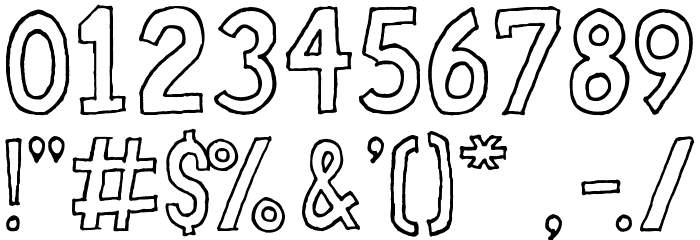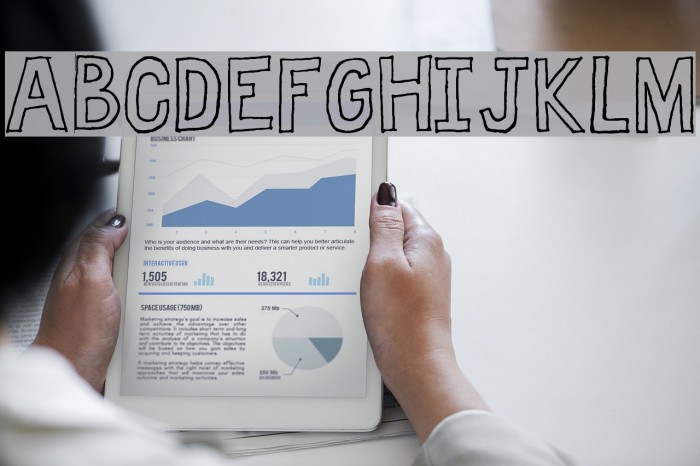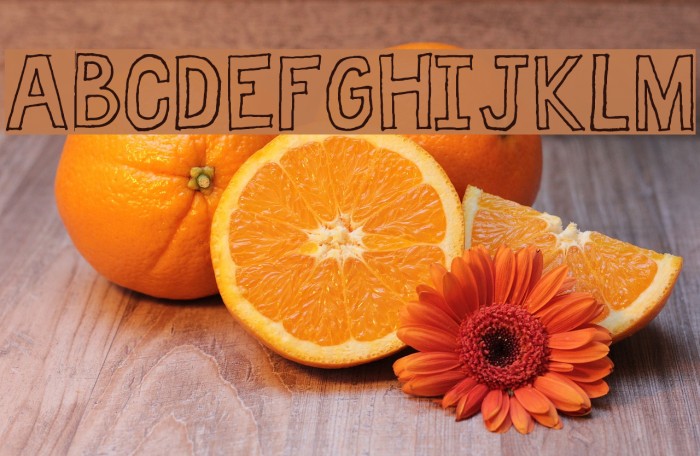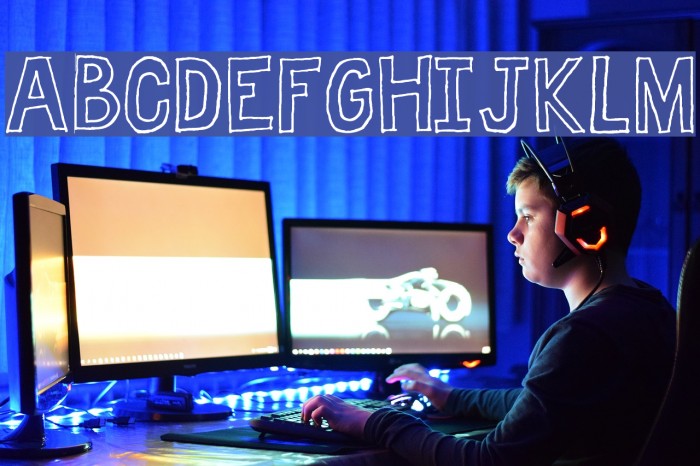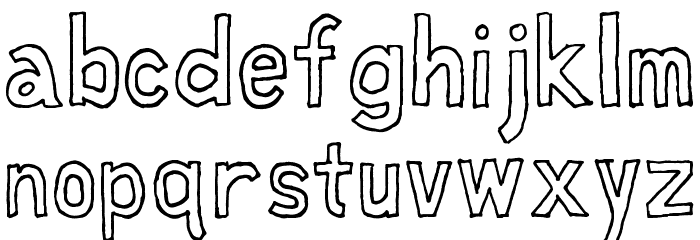
Fat Free Font
Fat Free Description
This font features a playful and hand-drawn style, characterized by its irregular and slightly wobbly lines that give it a casual and informal appearance. The uppercase and lowercase letters maintain a consistent height, while the numbers and special characters follow the same quirky design. The strokes are uneven, adding to the font's charm and making it suitable for projects that require a personal touch. Its unique style is reminiscent of doodles or sketches, making it ideal for creative and artistic applications.
A playful, hand-drawn font with irregular, wobbly lines.
- Proposed Projects: Ideal for children's books, comic strips, greeting cards, and creative posters.
- Use Case: Headlines, Logos, Creative projects